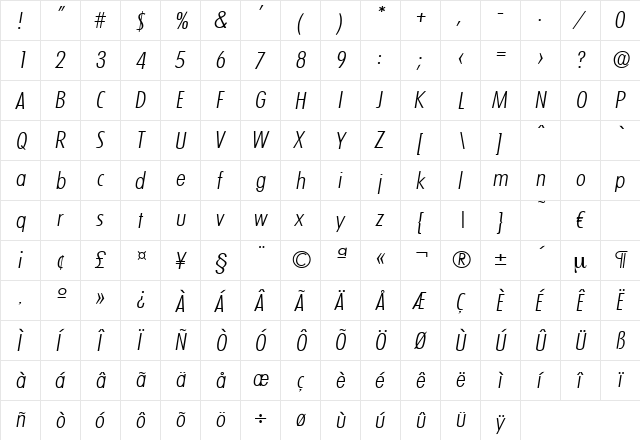
Limerick-LightCondIta Regular Font Preview
Limerick-LightCondIta Regular
Limerick-LightCondIta Regular Font Details
Design Context for Limerick-LightCondIta Typeface
Limerick-LightCondIta offers clean, dependable letterforms without strong stylistic allegiance, making it a practical choice for designers who need flexibility. Its slender proportions lend an understated elegance to any composition. Its narrow stance lets it pack a punch even in space-constrained designs.